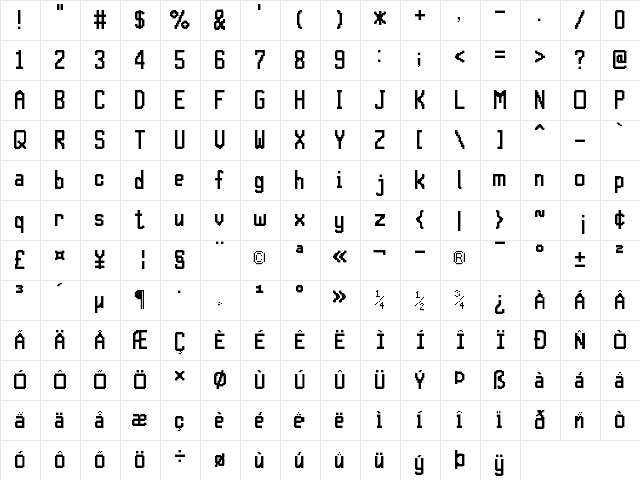
16x8Pxl_Sans Regular
| Designer | corne2plum3 |
Design Context for 16x8Pxl_Sans Typeface
16x8Pxl_Sans is a composed and adaptable typeface that performs quietly and consistently across a wide range of design contexts.